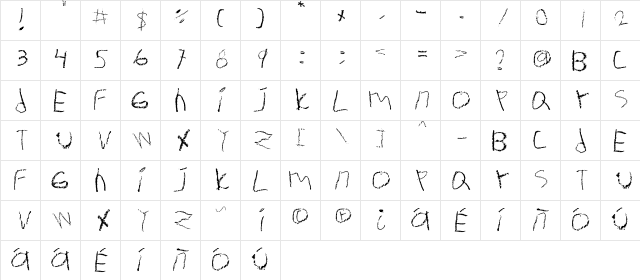
Ermanita Regular
Design Context for Ermanita Typeface
Ermanita is a composed and adaptable typeface that performs quietly and consistently across a wide range of design contexts.